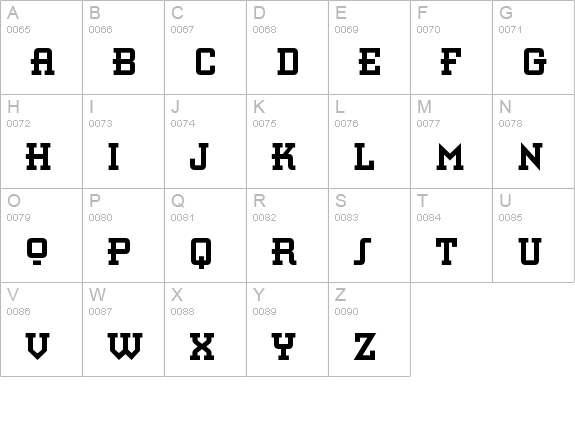
Retro Bold Plain Font Details
Retro Bold Plain is a strong, high-contrast variant in the Retro typeface family \xE2\x80\x94 well suited to headlines, attention-grabbing titles, and strong calls-to-action.
Retro Bold Plain font is a stunning display typeface that effortlessly combines the charm of vintage typography with a bold and modern twist. With its clean lines and distinct retro-inspired design, this font is perfect for adding a touch of nostalgia to any project. Featuring strong, thick letterforms, Retro Bold Plain exudes confidence and personality. Its simplicity and straightforwardness make it incredibly versatile, allowing it to be used in a wide range of applications such as logos, headlines, posters, and more. What makes Retro Bold Plain even more remarkable is that it is free. Yes, you heard it right! This fantastic font is freely available to download at FontsMarket.com. Now you can enhance your designs without breaking the bank. Whether you're a professional designer or just starting out, Retro Bold Plain font is an excellent addition to your font collection. With its timeless appeal and captivating presence, Retro Bold Plain font is sure to make a lasting impression. So why wait? Head over to FontsMarket.com and get your hands on this incredible font today. Elevate your designs to new heights and leave a lasting impression with Retro Bold Plain.